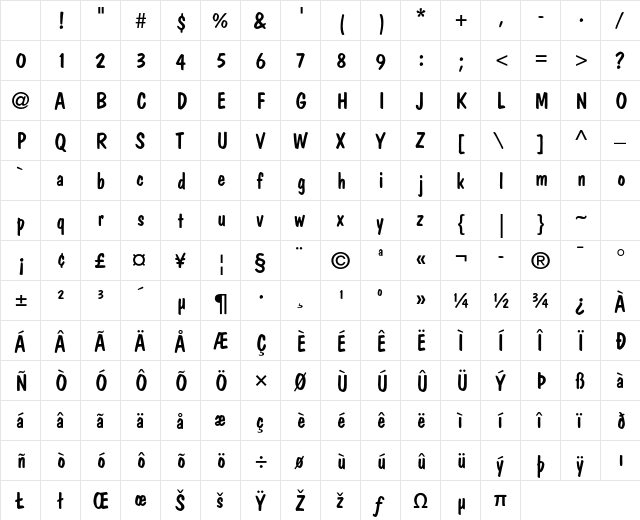
Dom Casual Std Medium Free Font
Dom Casual Std Medium
Designer: Peter Dombrezian
Design Context for Dom Casual Std
Dom Casual Std is a composed and adaptable typeface that performs quietly and consistently across a wide range of design contexts.